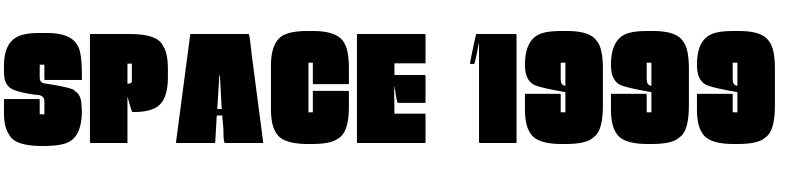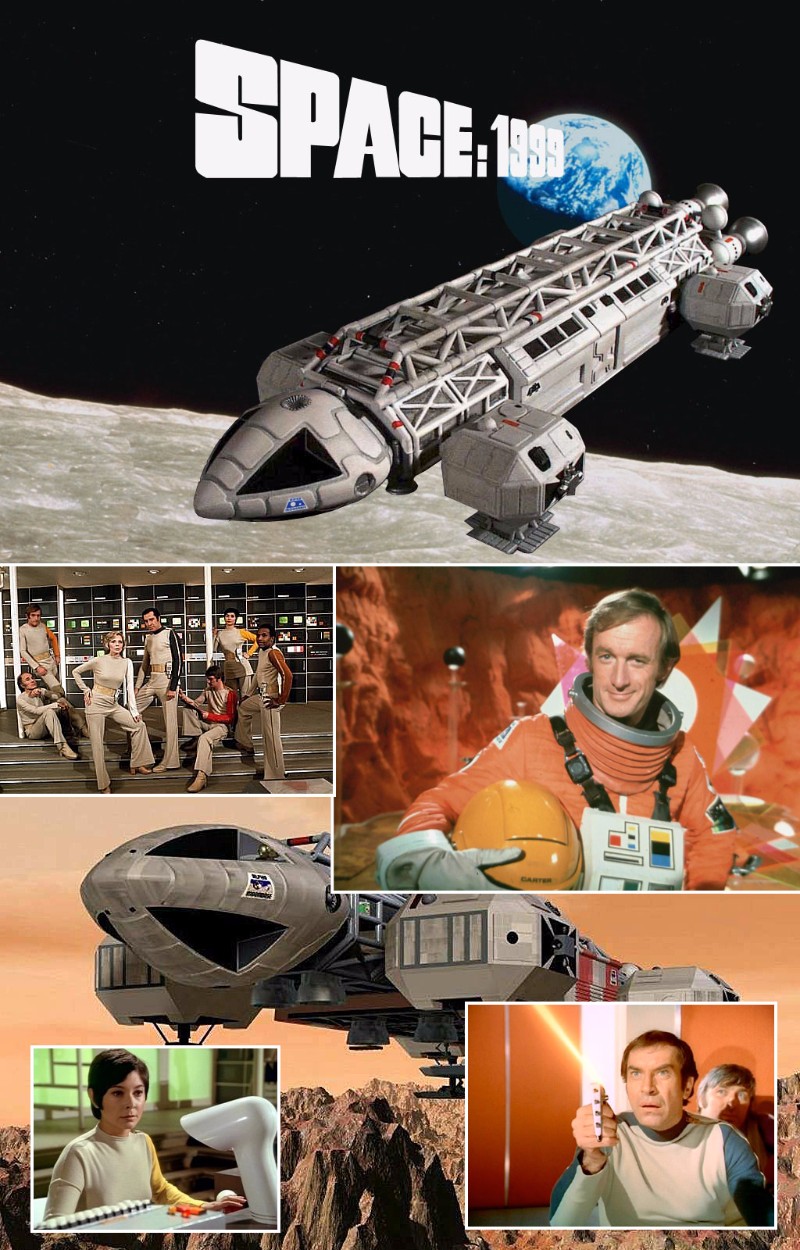
Space 1999 Font
Fonts in UseSpace:1999 is a British science fiction television series that aired from 1975 to 1977, following the adventures of the inhabitants of Moonbase Alpha as they are hurled into deep space after a massive nuclear explosion on the Moon.
The movie's title on the poster and the intro resemble Neil Bold, a font created by Wayne Stettler in 1966. Additionally, the intro text also includes other fonts such as Futura Medium and Futura Black.